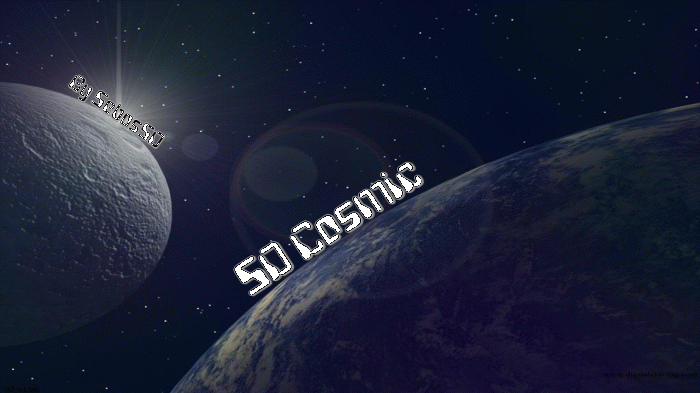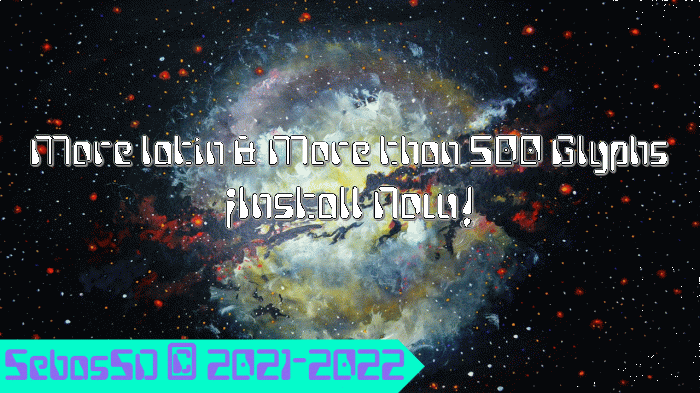
Capital Z has too much space on the right…
...But ? and ! have lost their "saturnian eye"... ?
They are still present in the original SD Cosmic City font.
im'happy :D and... elmo i return this "saturnian eye" to ? and ! okay? :)